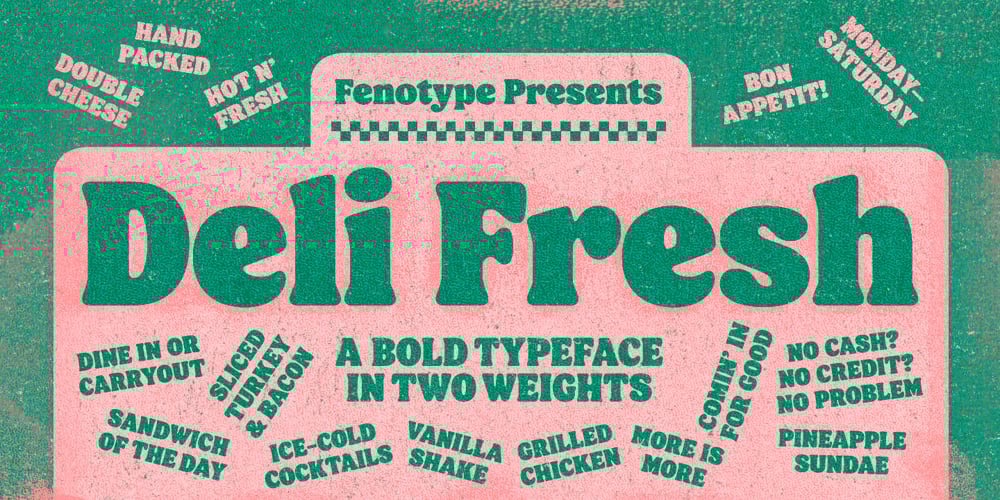
Deli Fresh Font Family was designed by Emil Karl Bertell and published by Fenotype. Deli Fresh contains 2 styles and family package options. Deli Fresh is a hefty rounded serif typeface in two styles. Deli Fresh has sturdy yet soft features giving it a friendly and reliable look. The typeface emits touch of nostalgia though it’s fairly modern with its clear character and fully equipped OpenType arsenal boasting of Standard and Discretionary Ligatures, as well as Swash, Stylistic and Titling Alternates.